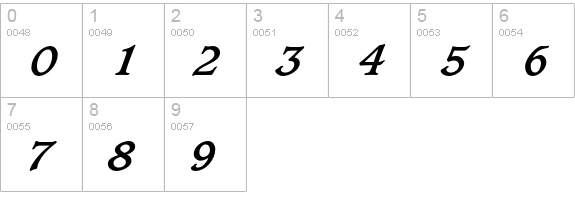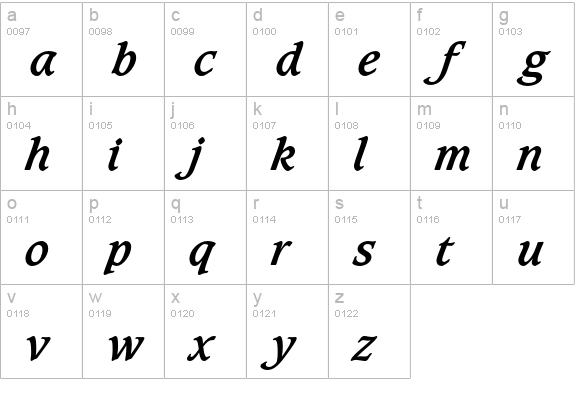
Caxton Bold Italic is a strong, high-contrast, italic variant in the Caxton typeface family \xE2\x80\x94 well suited to headlines, attention-grabbing titles, and strong calls-to-action.
The Caxton Bold Italic font exudes elegance and sophistication with its striking bold weights and sleek italic styling. Perfect for adding a touch of modern flair to any design project, this versatile typeface commands attention and conveys a sense of confidence and professionalism. Its clean lines and distinctive curves make it a standout choice for headlines, branding, and editorial design. Best of all, Caxton Bold Italic is available for free download at FontsMarket.com. Whether you're a seasoned designer looking to refresh your font collection or a newcomer seeking a stylish typeface for your next project, Caxton Bold Italic offers the perfect blend of style and substance. Download this beautiful font today and elevate your designs with its timeless appeal.